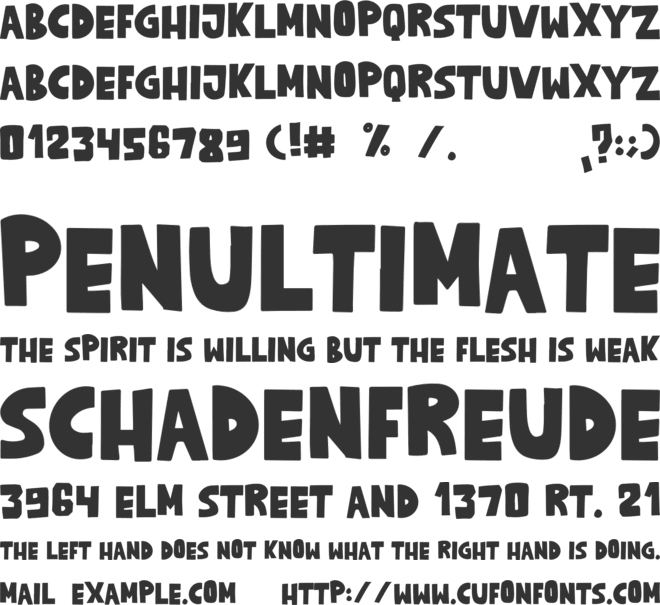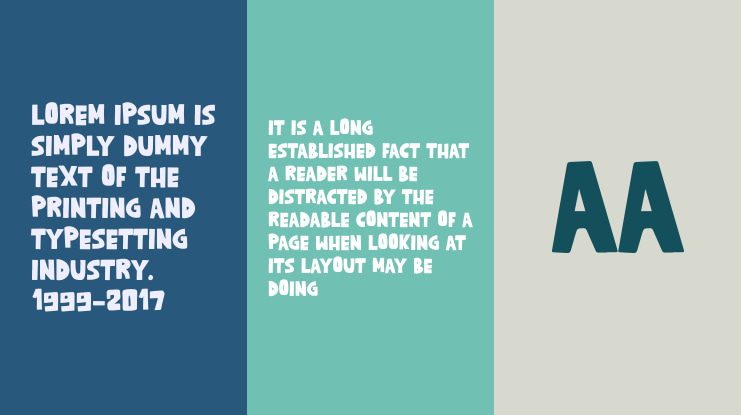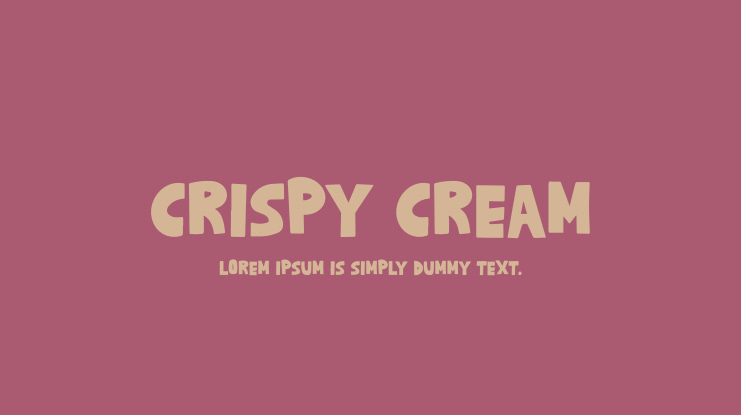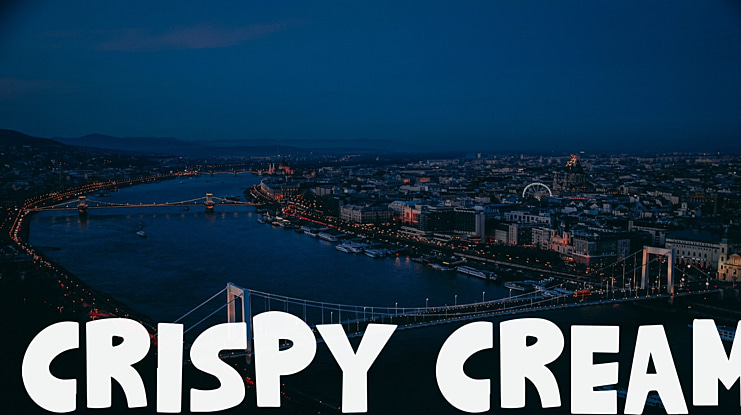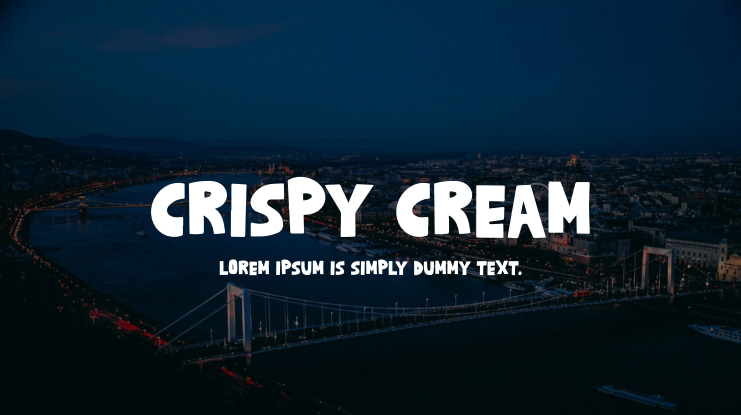
Crispy Cream Font Family
Crispy Cream is a super fun, quirky and child themed typeface. Perfect for child related project, cute quotes and so much more.